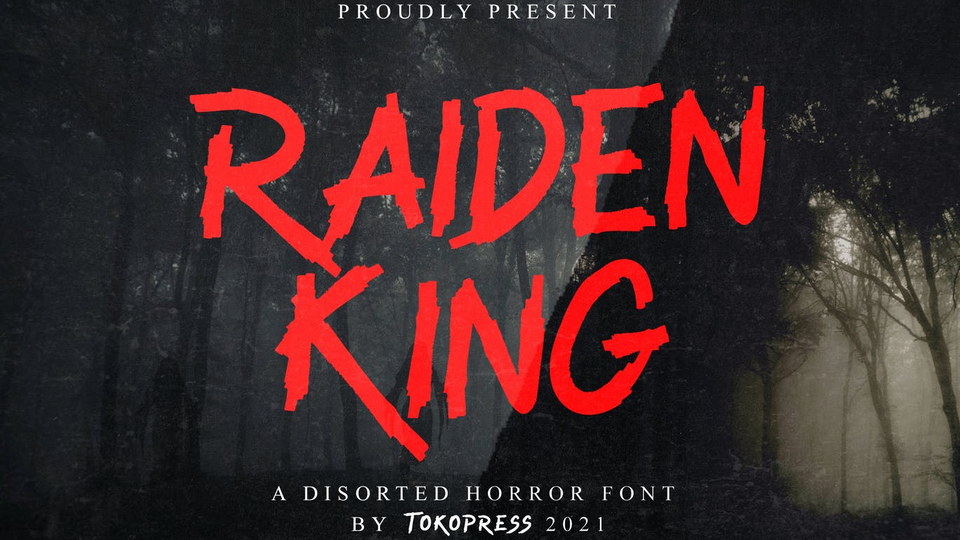
Download Raiden King font, a hand painted brush typeface. Raiden King is rough, full of rage, and screaming terror and horror all over the words it is written with.